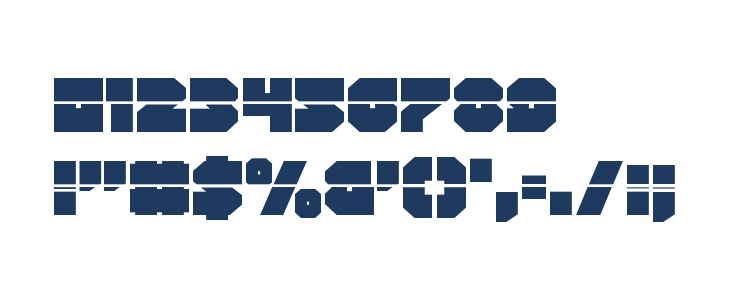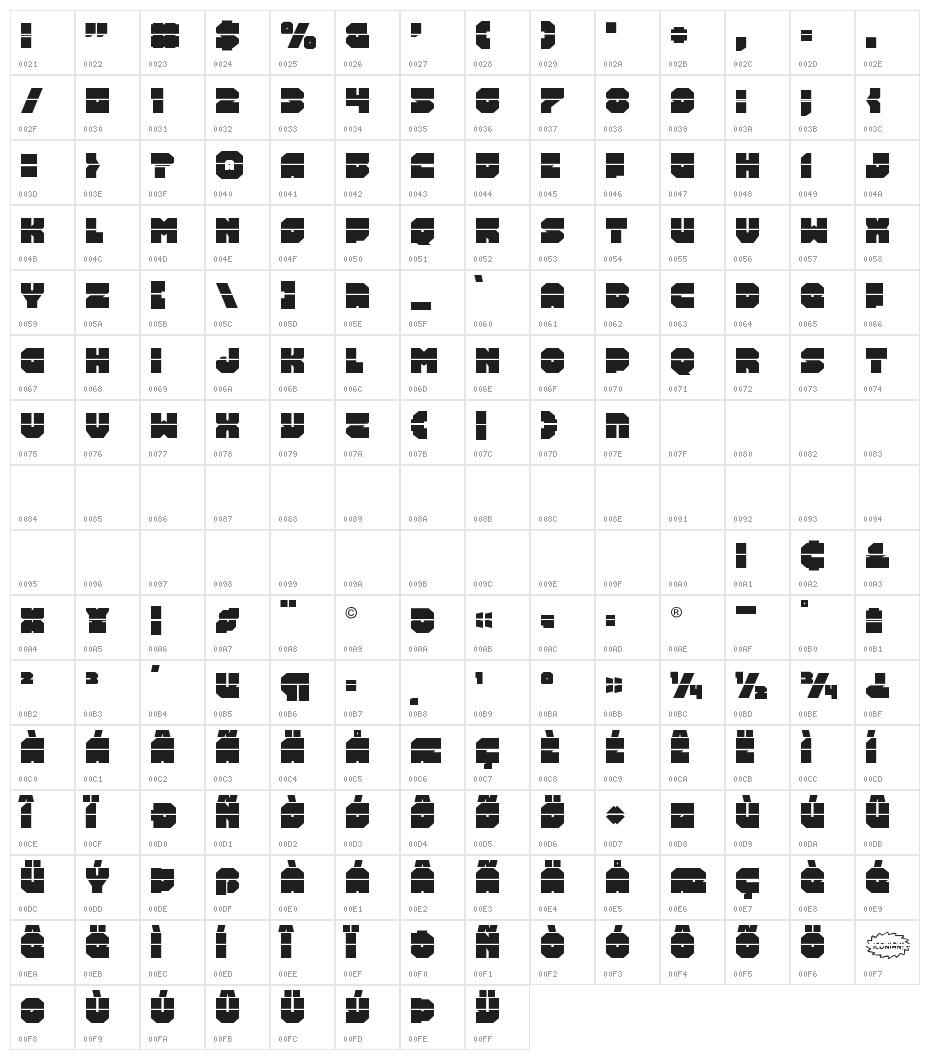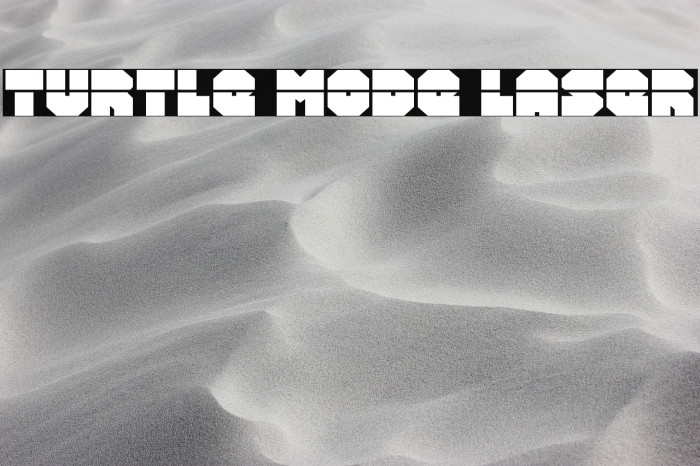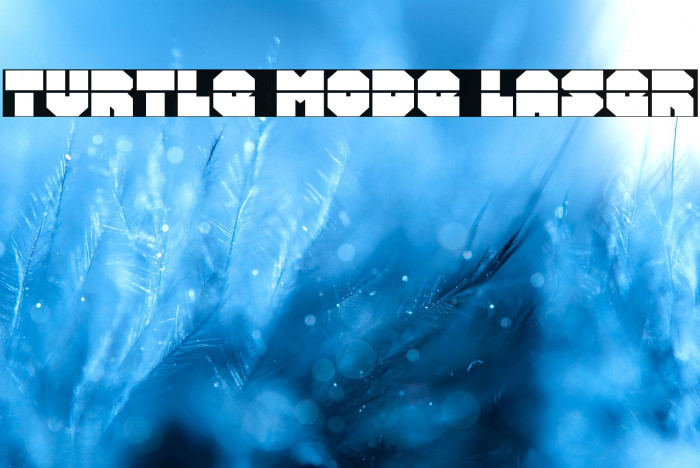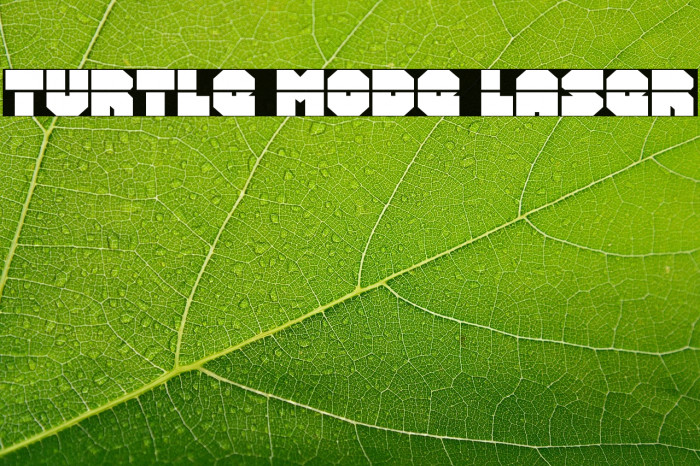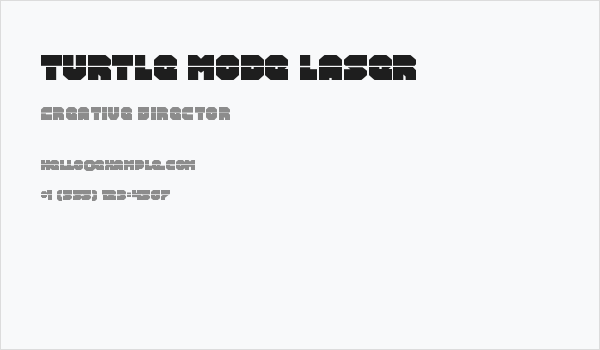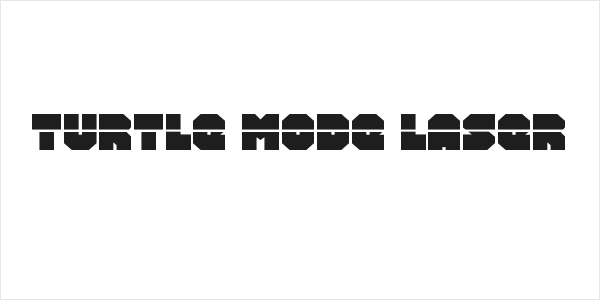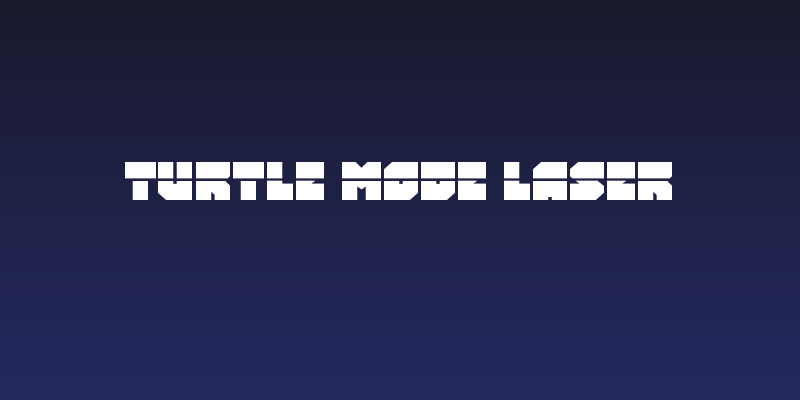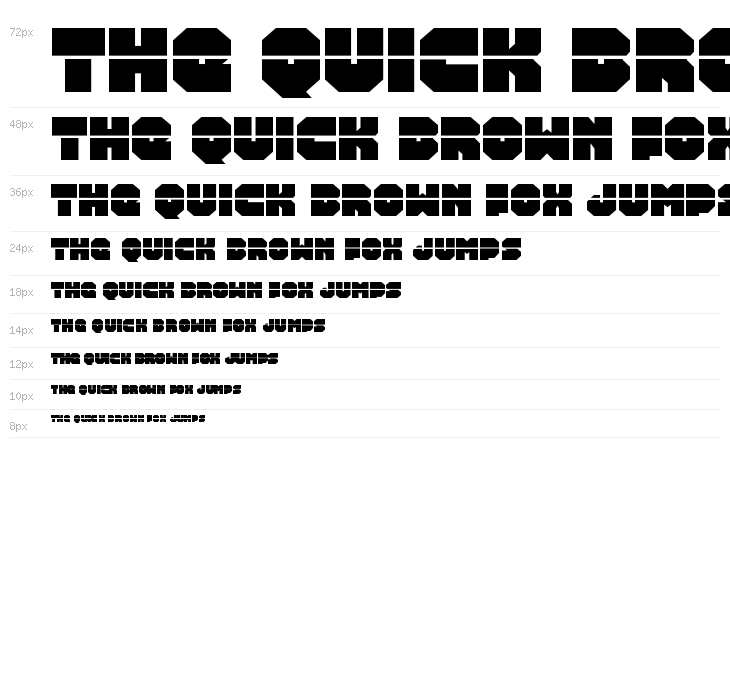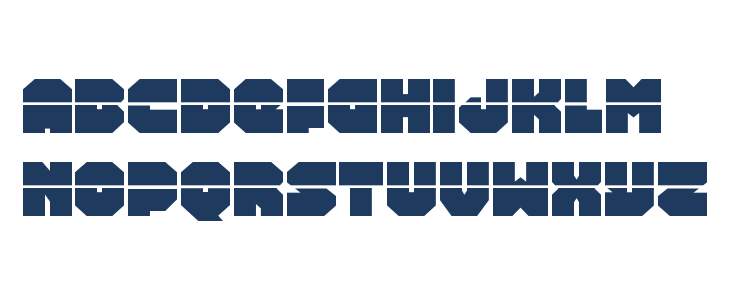
Turtle Mode Laser Font
Turtle Mode Laser Description
This font features a bold, geometric design with a futuristic and industrial feel. The characters are constructed with sharp angles and solid fills, creating a strong visual impact. The uppercase and lowercase letters maintain a consistent style, emphasizing uniformity and precision. The numbers and special characters follow the same design principles, ensuring a cohesive look across all elements. This font is ideal for projects that require a modern and edgy aesthetic, such as technology branding, video game titles, or sci-fi themed designs.
| Proposed Projects | Ideal for technology branding, video game titles, sci-fi themes, and modern posters. |